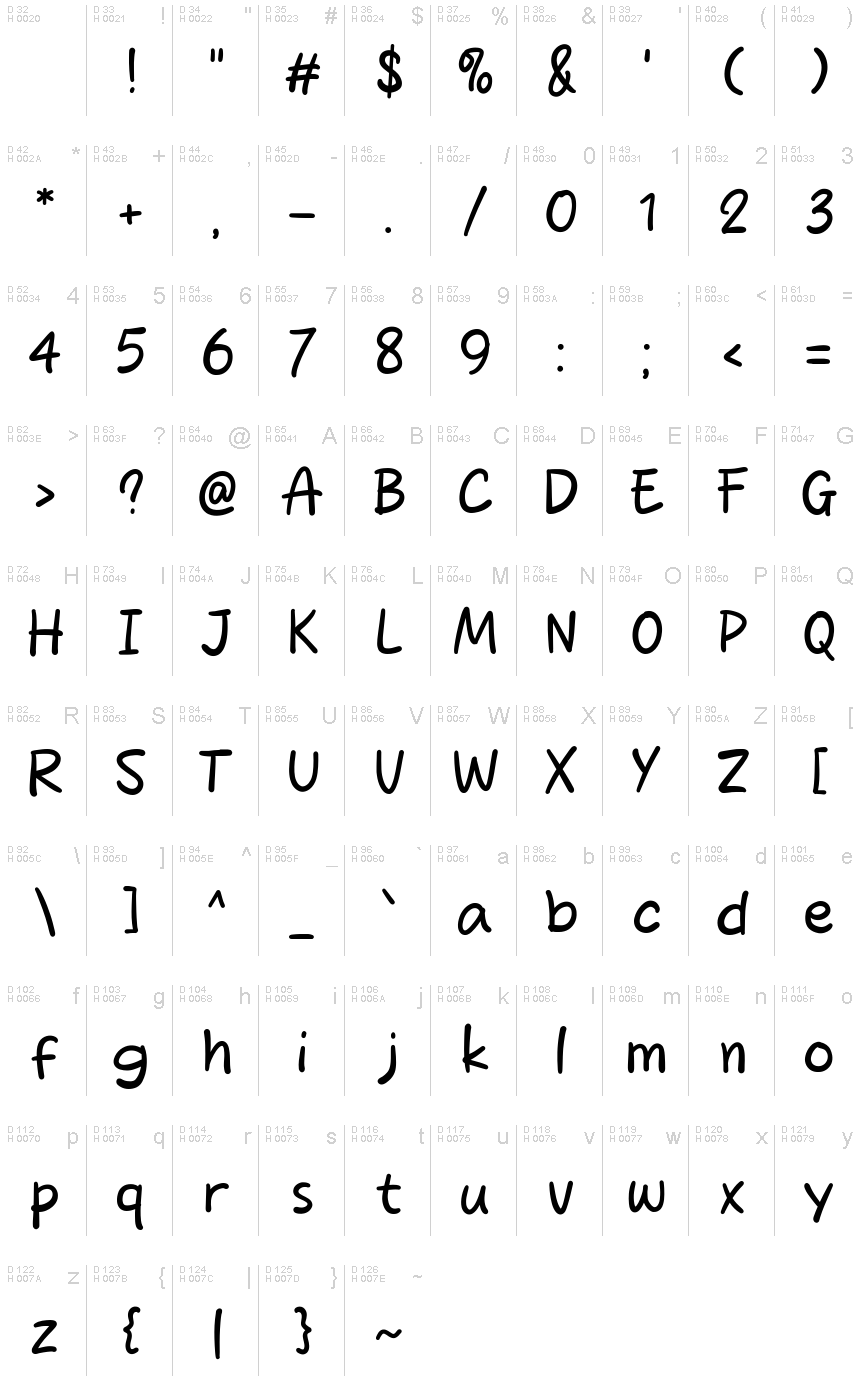
Hello Mickeys
Hello Mickeys, designed by Khurasan, embodies the casual charm of handwritten script with a personal touch. Its flowing letters and organic variability capture the essence of natural handwriting, making it feel intimate and approachable. The playful loops and soft terminals give this font a friendly and inviting aura that's perfect for designs seeking a touch of warmth.
Ideal for projects that require a handcrafted feel, Hello Mickeys flourishes in contexts like invitations, greeting cards, branding materials, and any space where an essence of individuality is desired. Its legible yet characterful appearance ensures it stands out in creative endeavors where personality is paramount.